35+ Best Hand-Picked Fonts For Graphic Designers
Best typography typefaces and Sans-serif fonts for graphic designers. This is a hand-picked collection of fonts included bold fonts, handwritten fonts, vintage fonts and semi-serif fonts. All these best fonts are perfect for branding, logos, greeting cards, wedding stationery, typographic quotes, book covers, website headers, flyers, clothing, packaging designs and more.
These professionally designed typefaces and fonts can significantly improve your design by simply included them in the project you are working on. All fonts are comes with a different handy set of Opentype stylistic alternates, ornament, ligatures, multiple language support and extras.
Best Sans-serif Fonts
Blackshore Hand Painted SVG Font
The Bystander Font
Tumbrella Script Sans Font
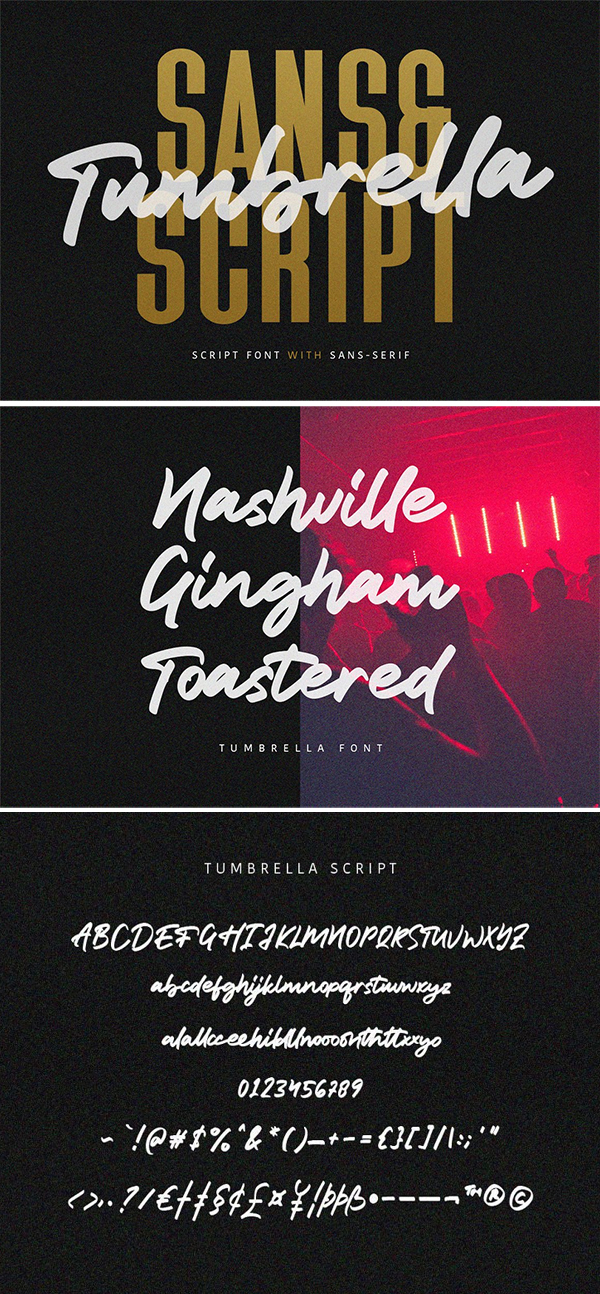
Osaca Font
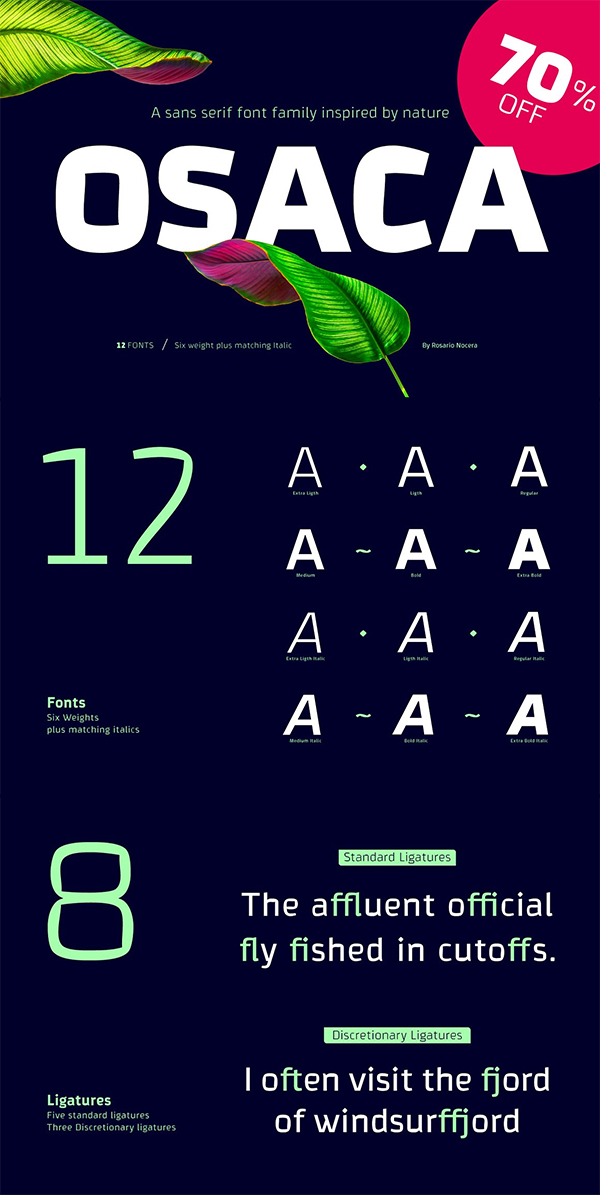
Bord Sans Serif Font
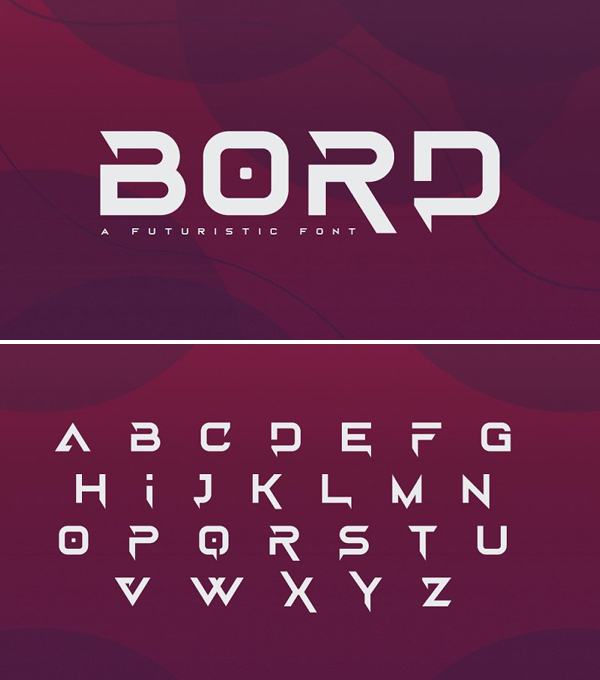
Bianca Font
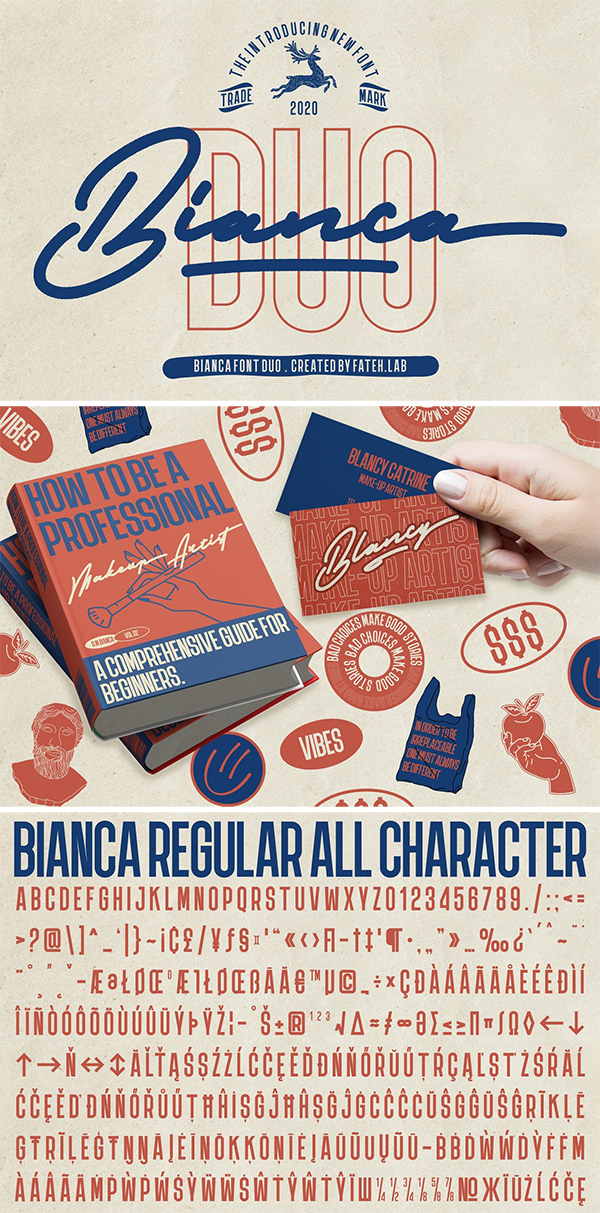
Aux Mono Font
Augillion Soft Bold Serif Font
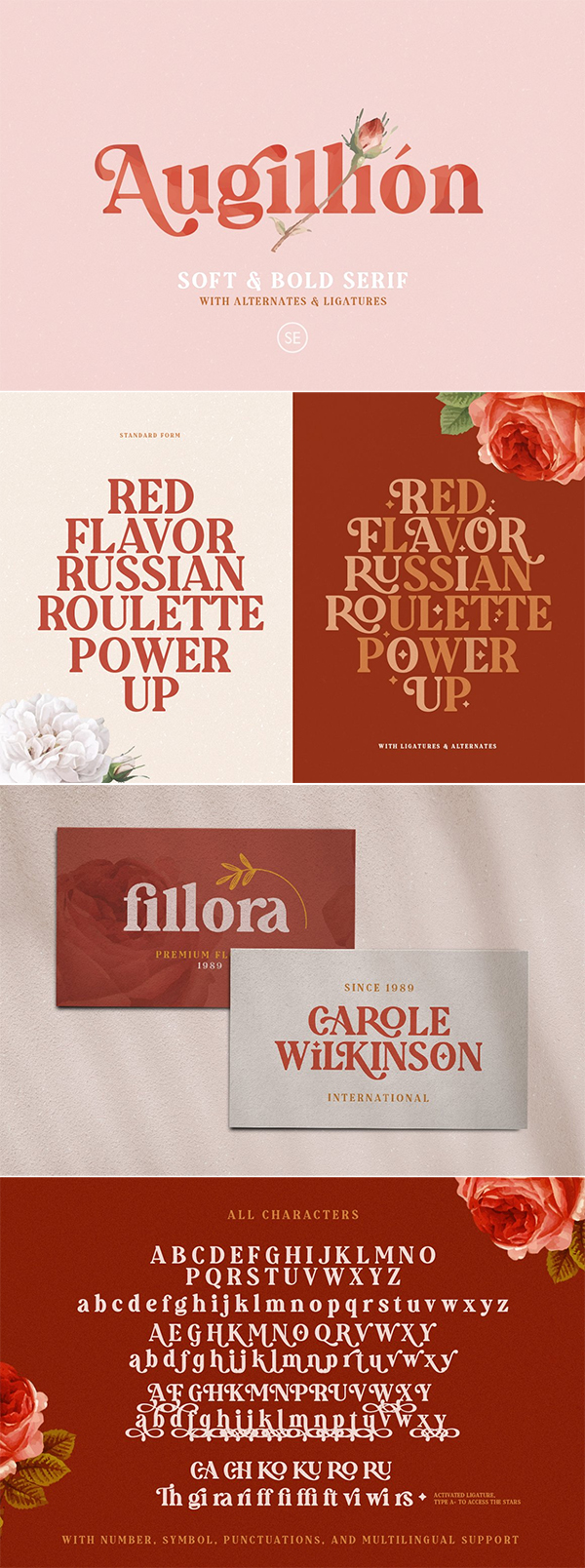
Bumblebee Sans Serif Font
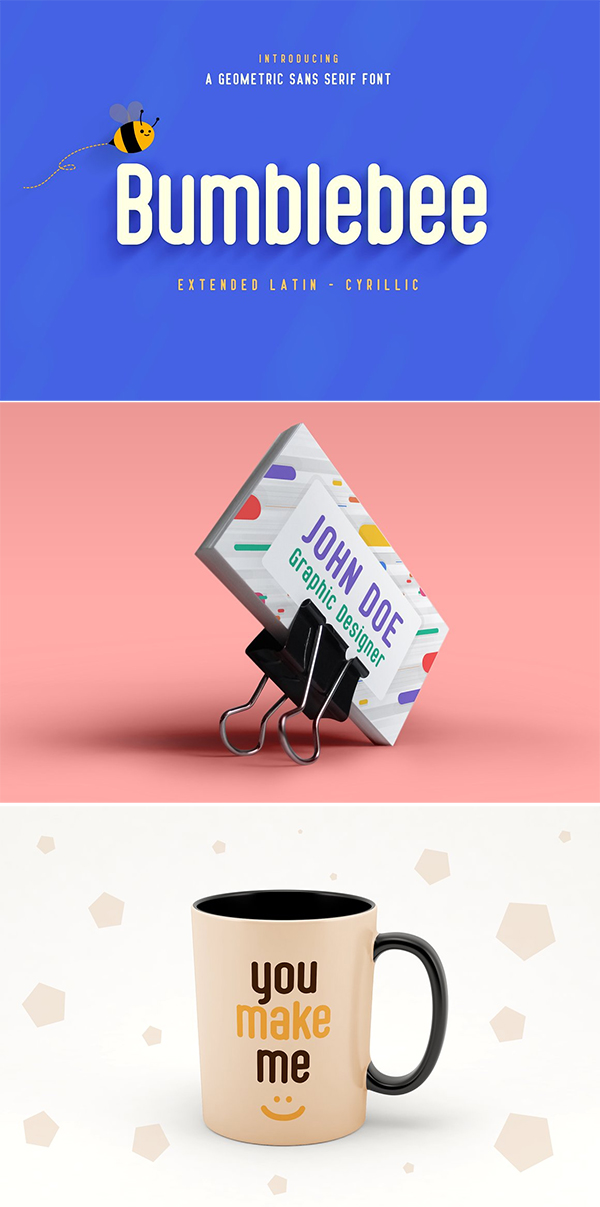
Gemini A Rounded Sans Serif Duo
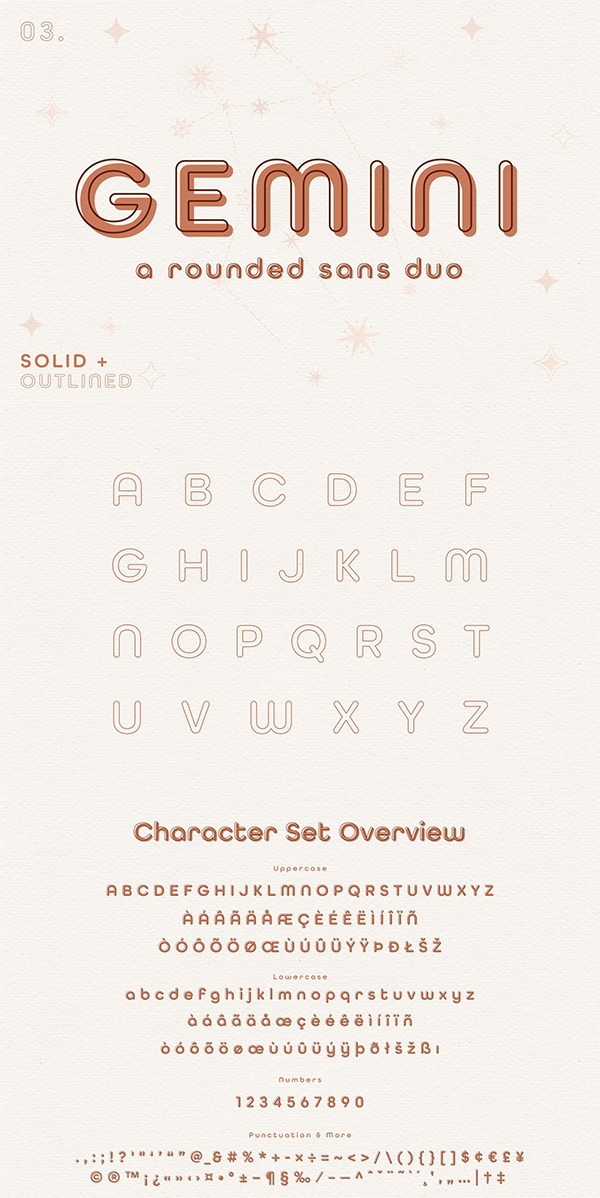
Kenac Font
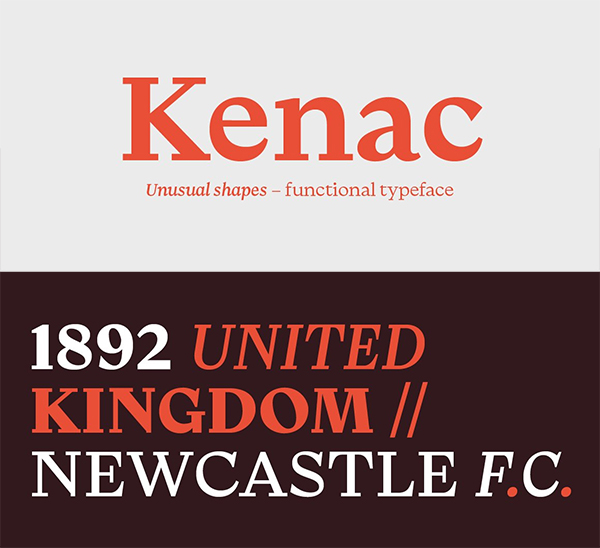
South Belgian Serif Font
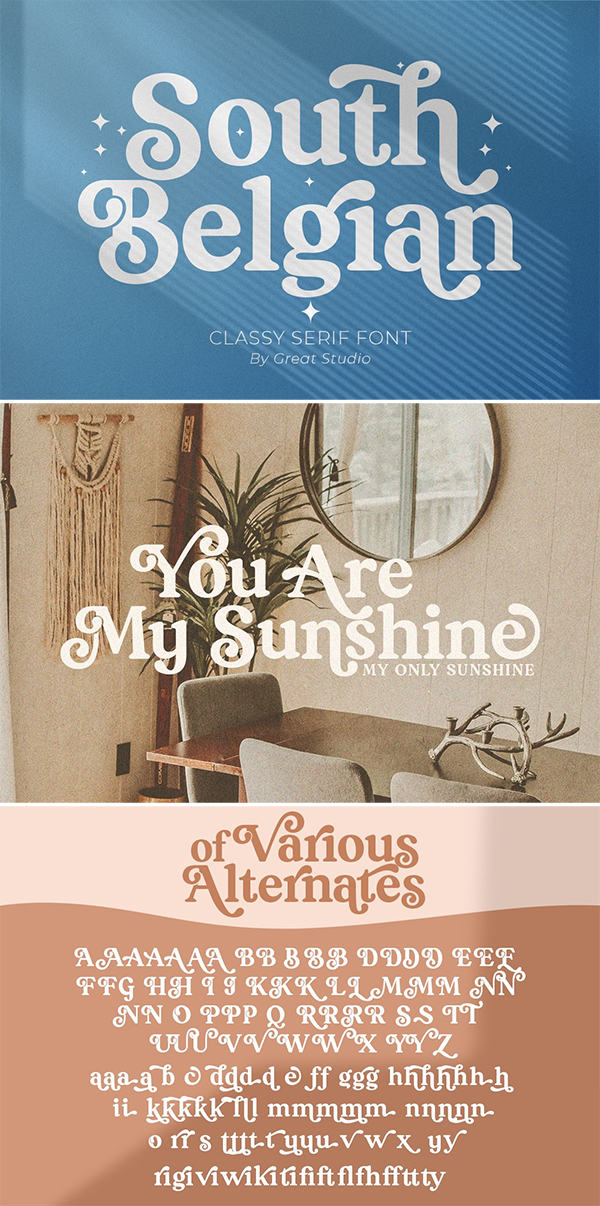
Charlotte William Font
Superset Display Font
Adisone Elegant Script Typeface
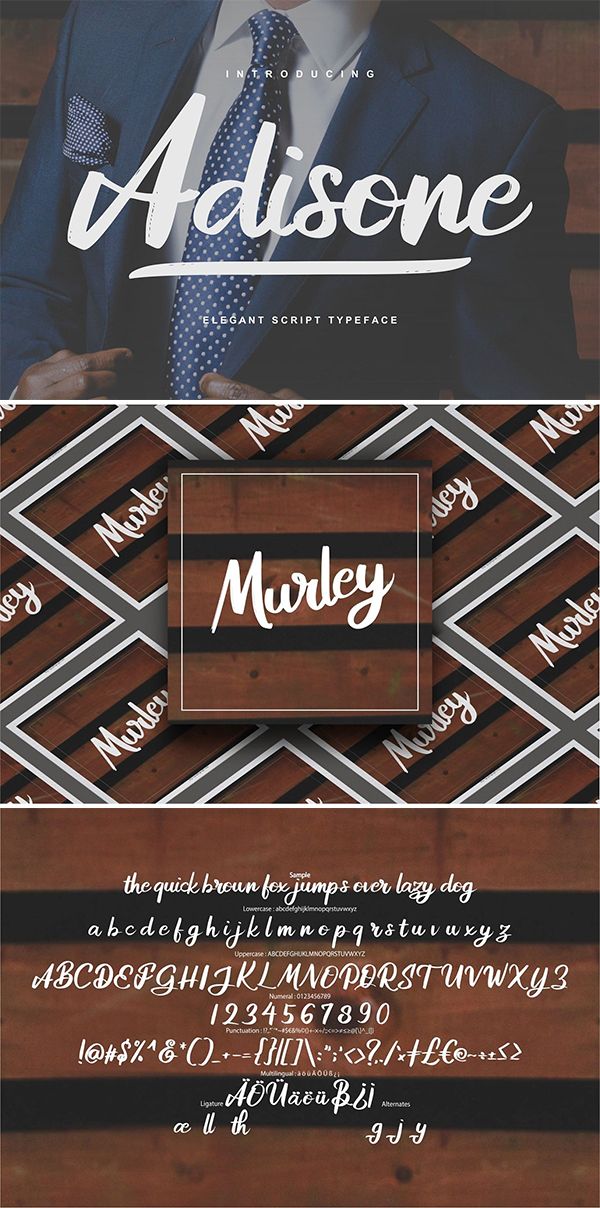
Claudio – Bouncy Display Font
Neufreit Font
Salloum Golden Font Duo
Mangueira Sans Serif Font
Washboard Typeface
Northern Light Font
Creative Árida Font
Classy Pen Scratch Style Font
Squeezed Headline Font
Tangerine – Retro Font
Racer Boy Font
Nuera Modern Sans Font
Wichita Display Sans Serif Font
High Beasty Font
Konkret Display Font
Espano – A Heavy Serif Font
Morning Violetta + Extra
Belize – Stylish Ligature Serif Font